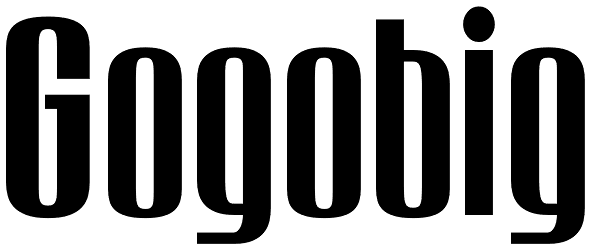
Gogobig
I have always been frustrated when looking for a bold condensed face. The choices were the usual? Helvetica Bold Condensed, Univers Bold Condensed or Alternate Gothic #2... all rather dated. I was looking for a really unique, clean, uncluttered sans...